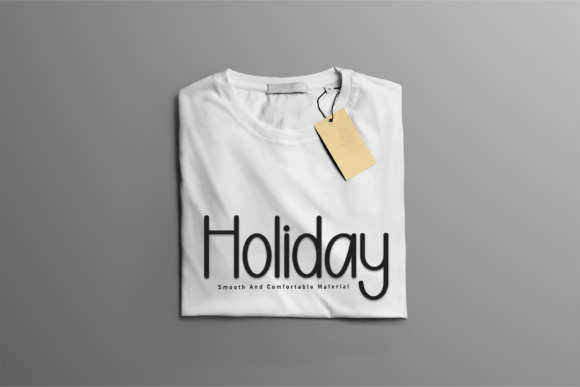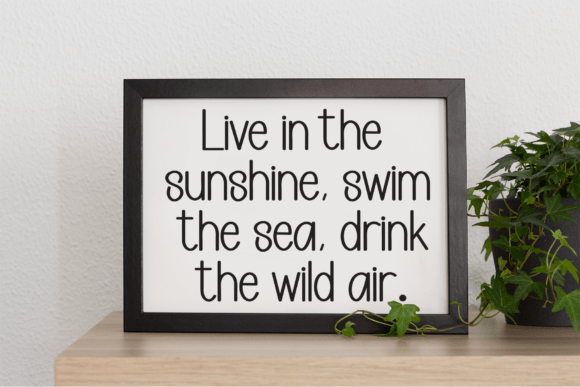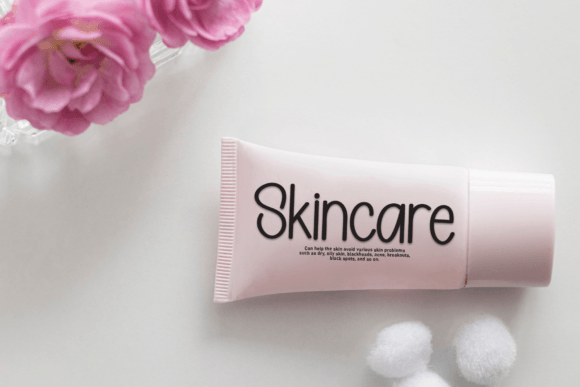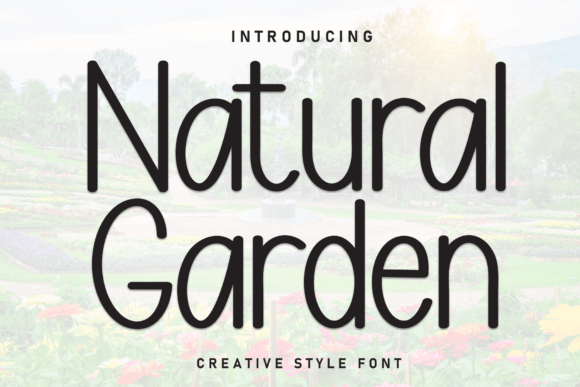
Introduction to Natural Garden Font
Introducing a charmingly delightful handwritten font – brimming with an endearing allure, perfect for creating a warm, inviting atmosphere in your design work.
This delightful font prides itself on its friendly persona, seamlessly breathing life into wedding invitations, heartfelt cards, or any design space that craves a dash of jovial spirit .
Why Choose Natural Garden Font?
Natural Garden Font offers exceptional quality and versatility, making it a valuable addition to your design toolkit. Whether you’re creating for personal projects or commercial use, Natural Garden Font delivers professional results.